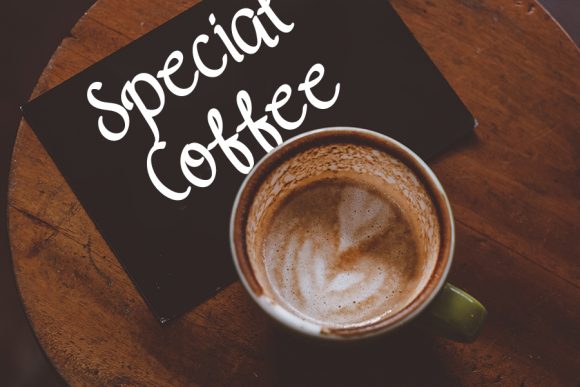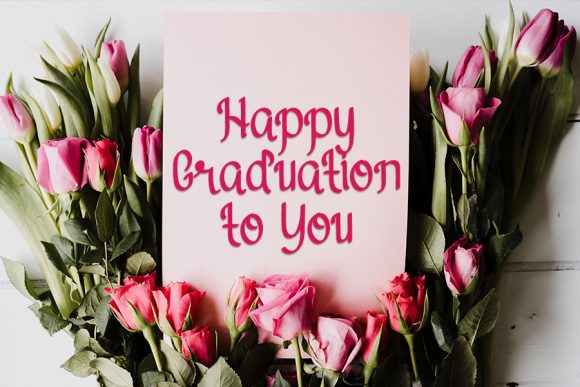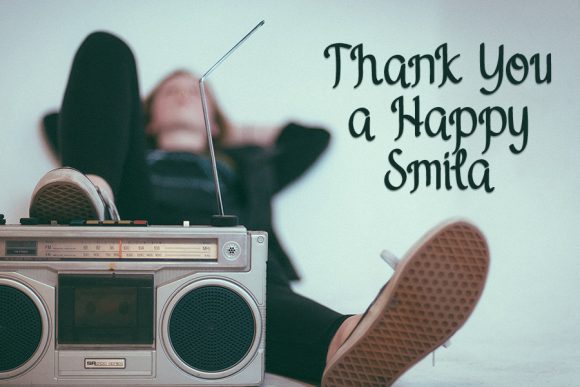
Before After Font
About Before After Font
Before After is a beautiful light handwritten font with a unique feel and a stunning impact. It will add a luxury spark to any design project that you wish to create! Have fun with this beautiful font and explore its endless variations.